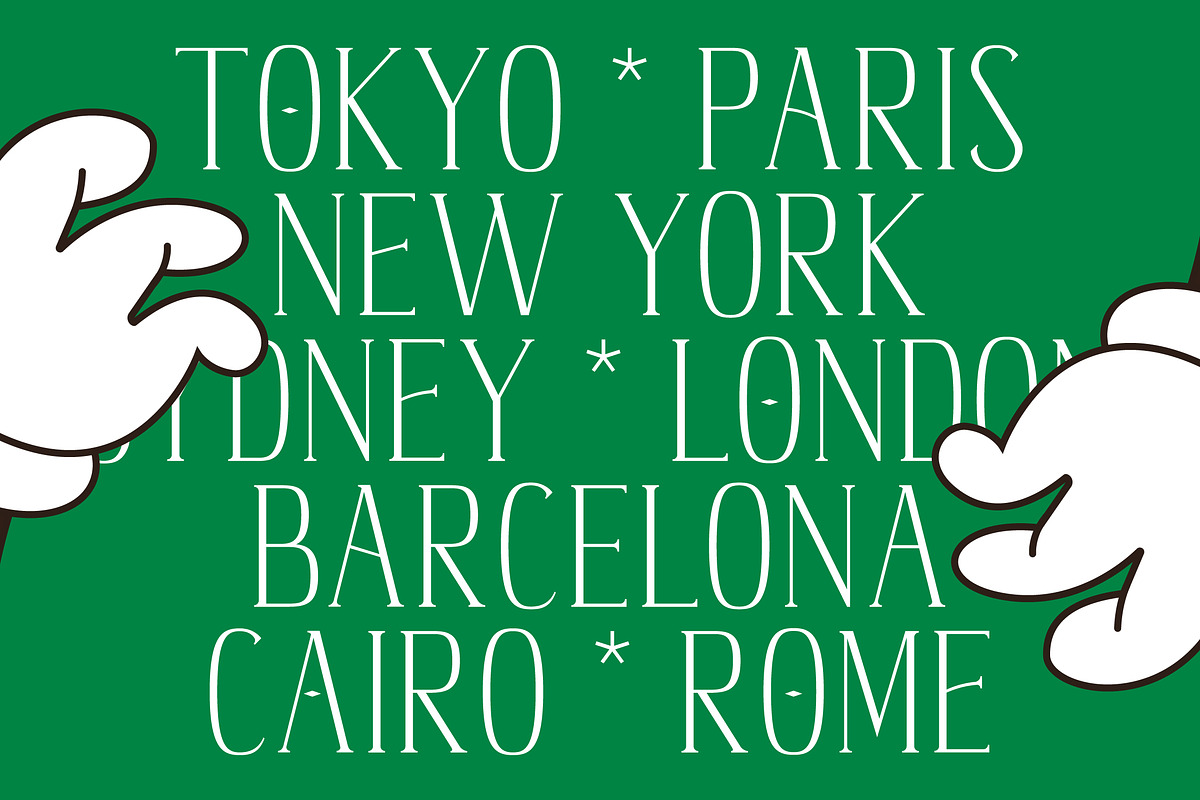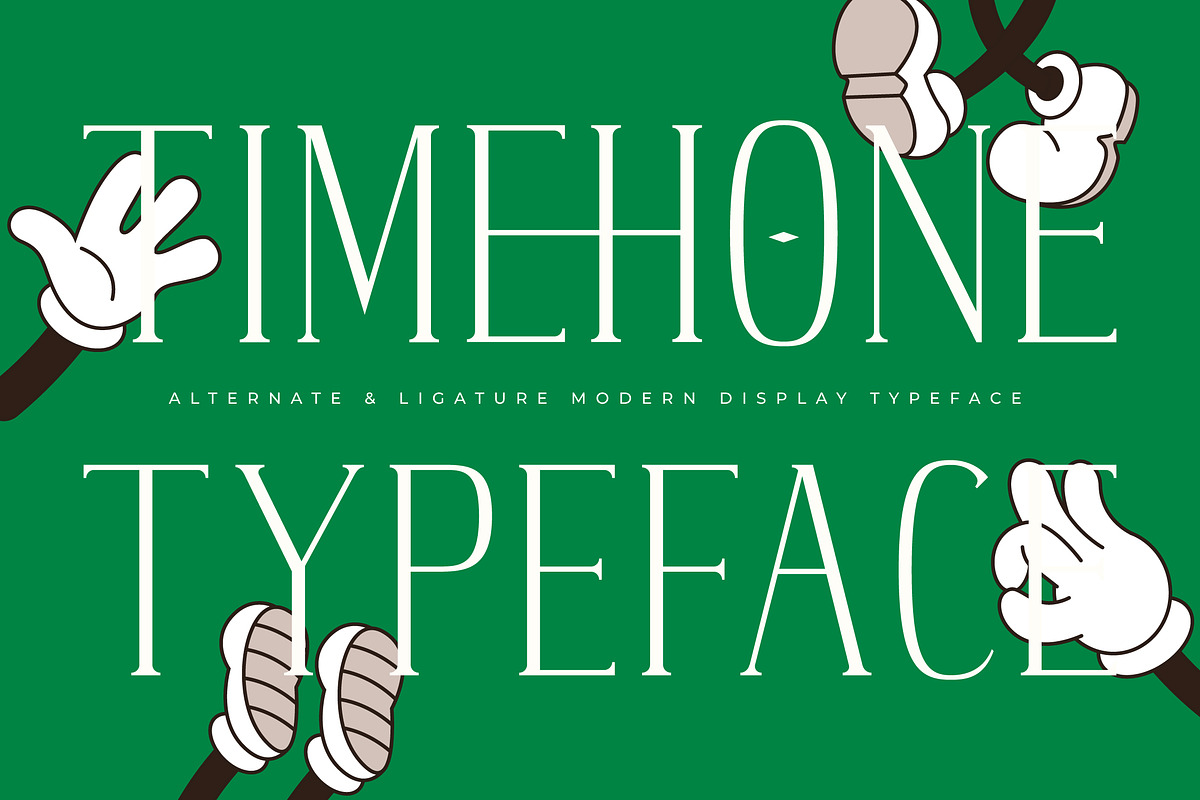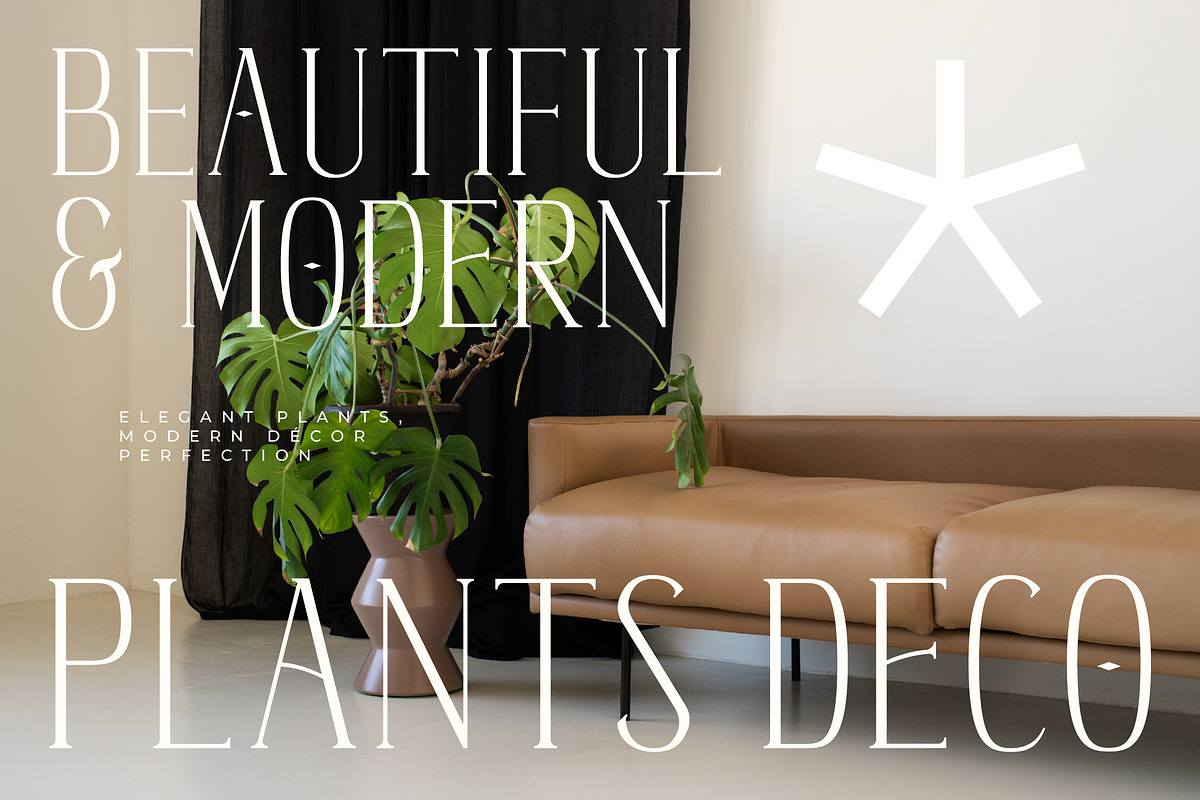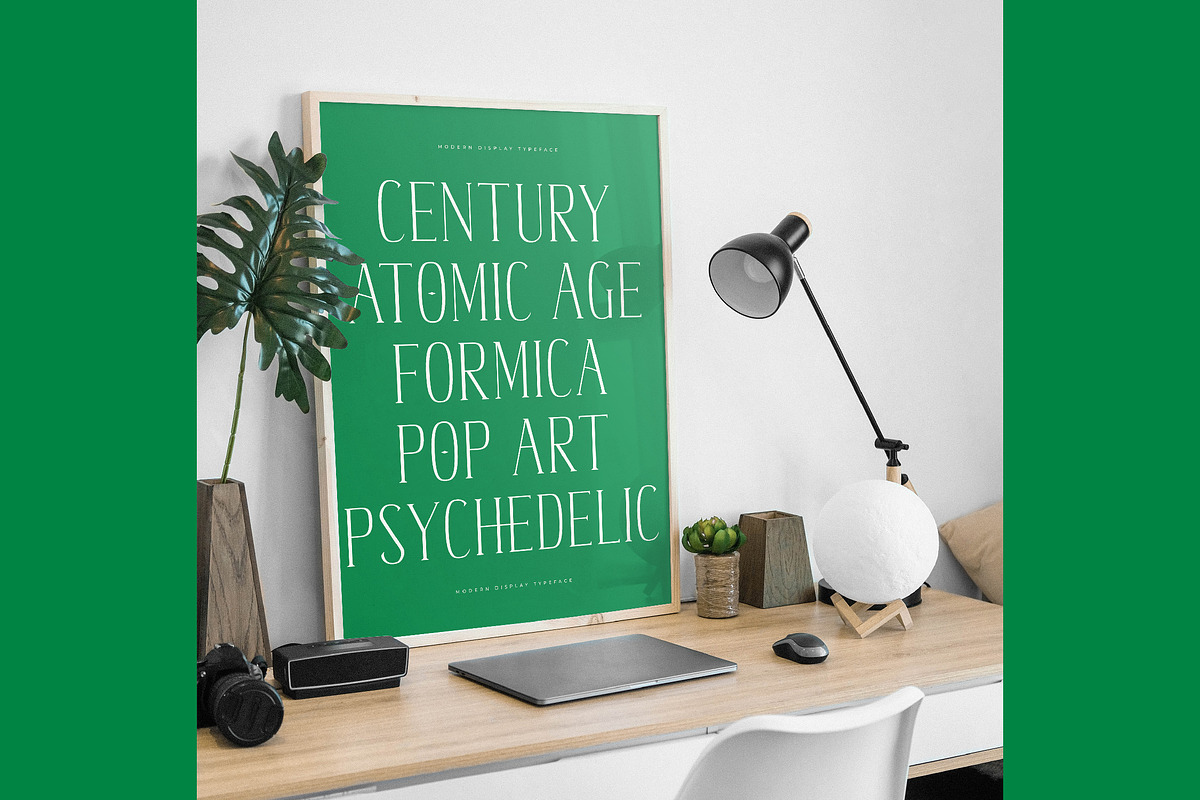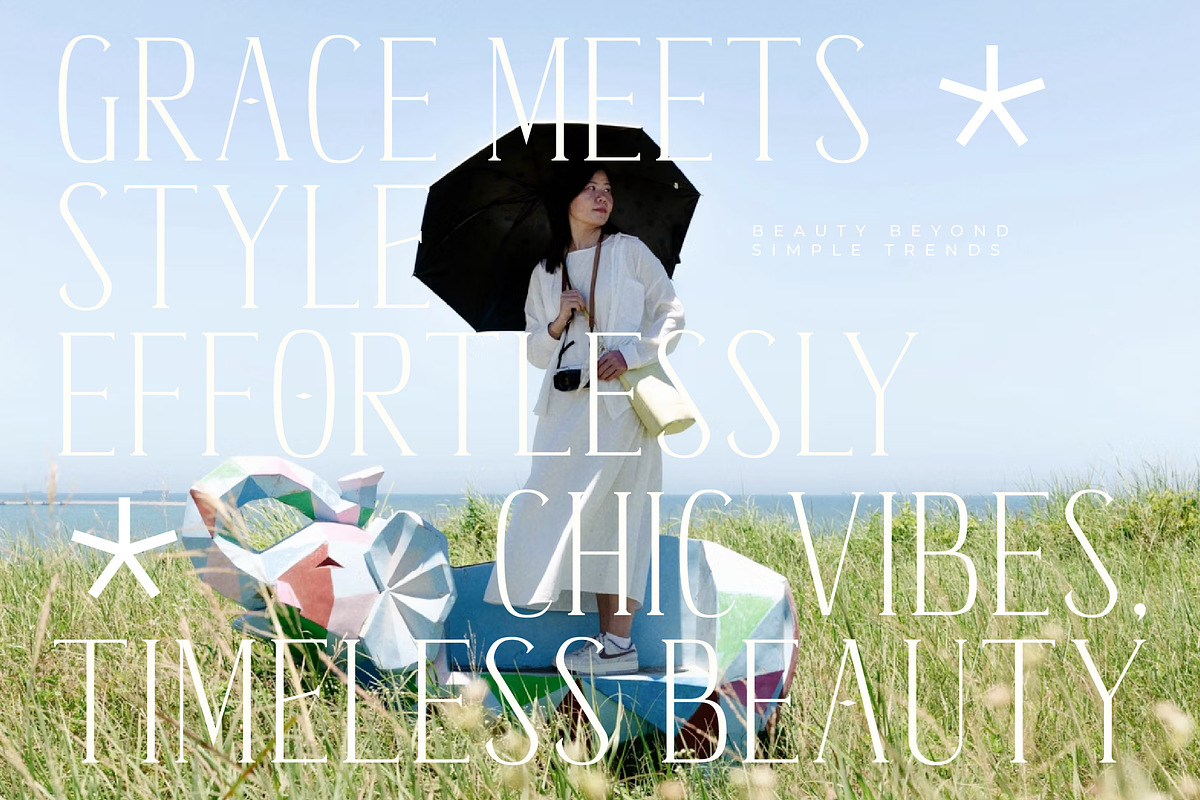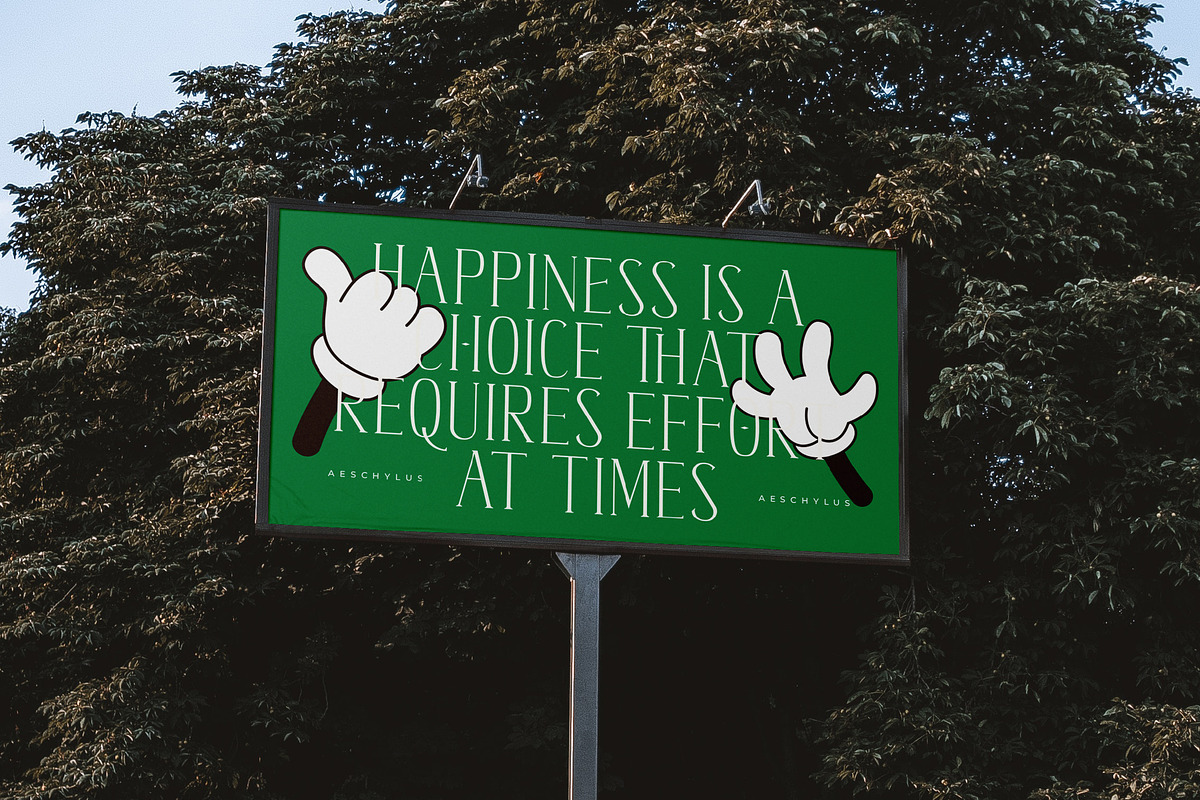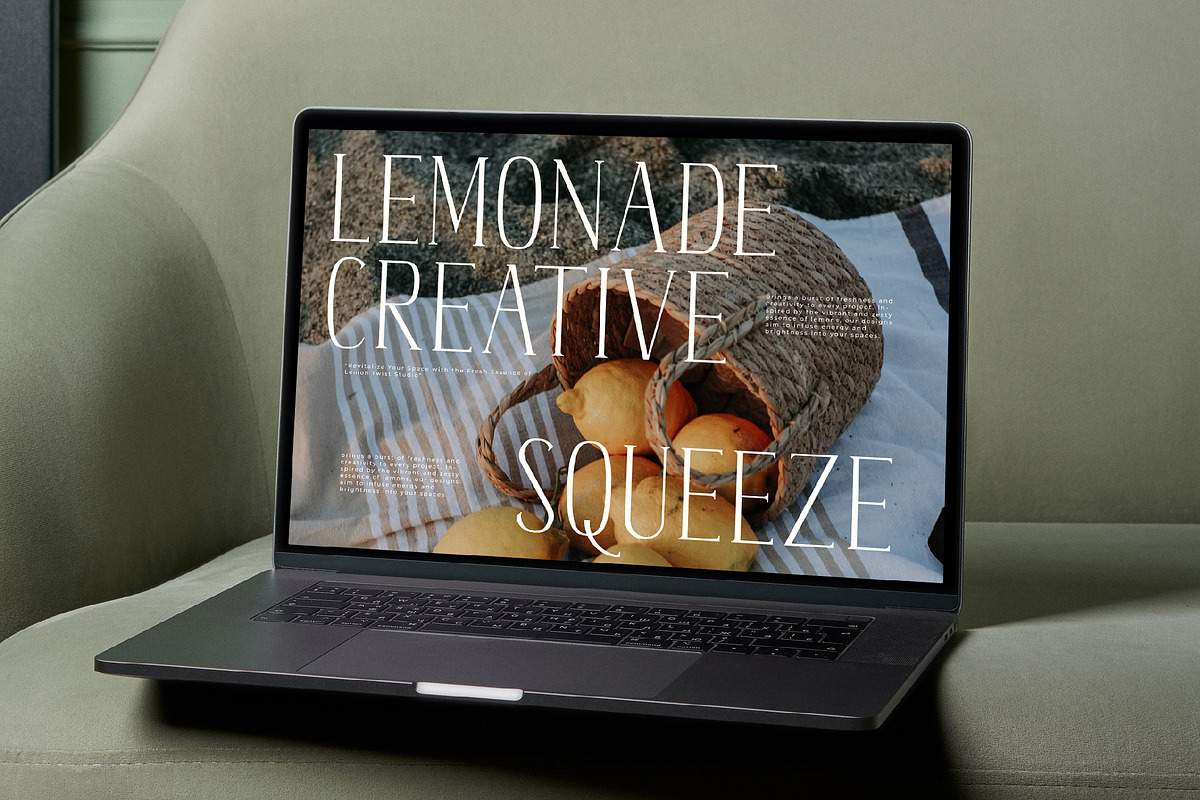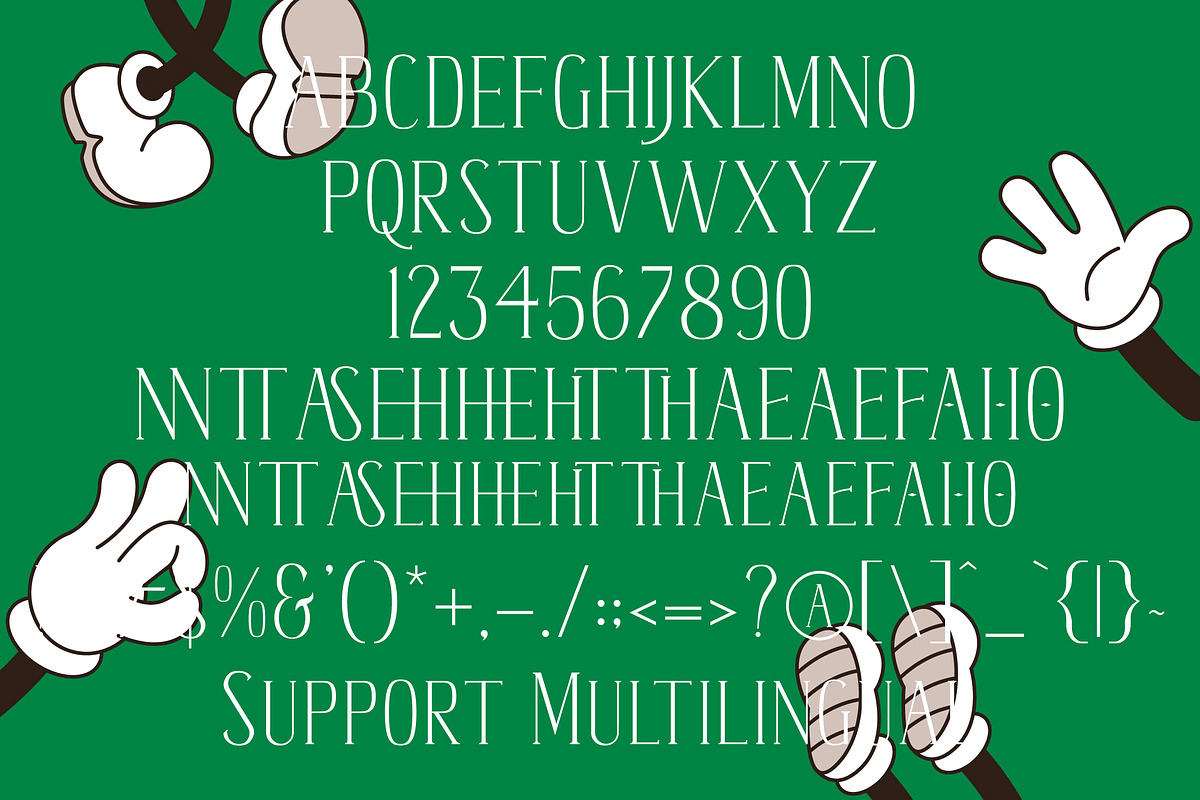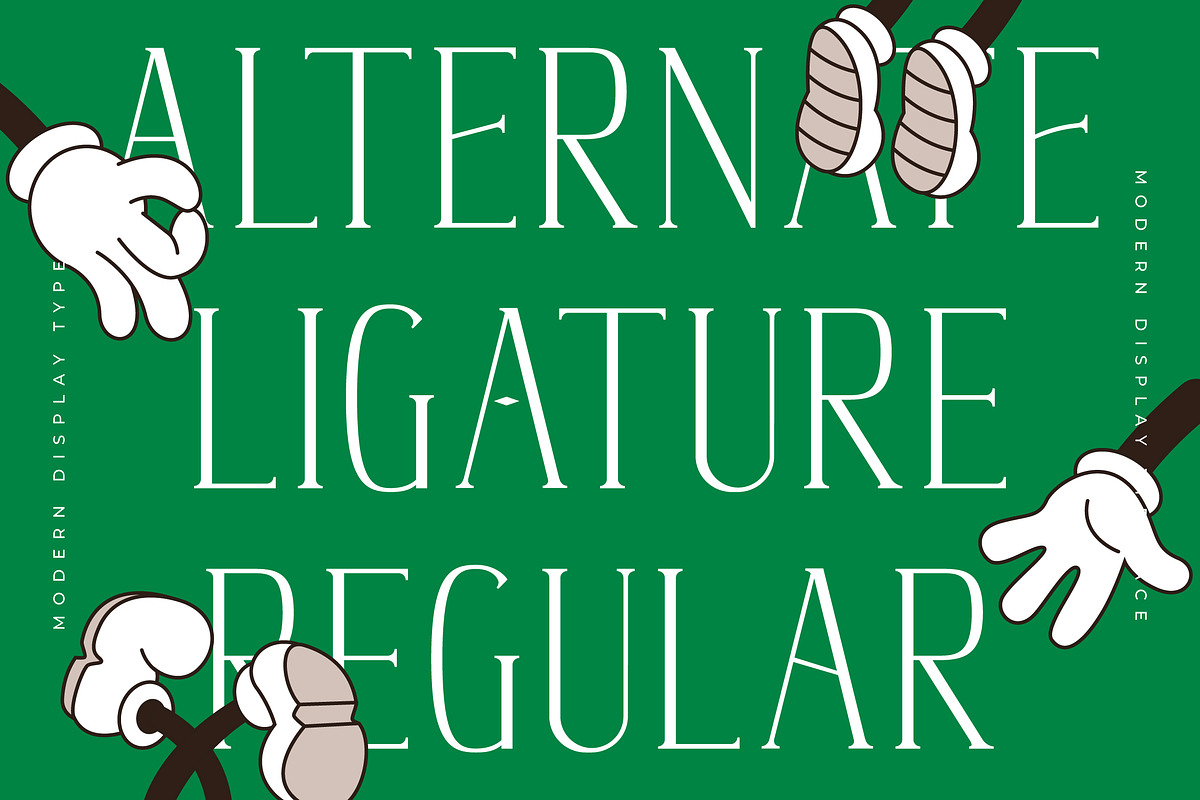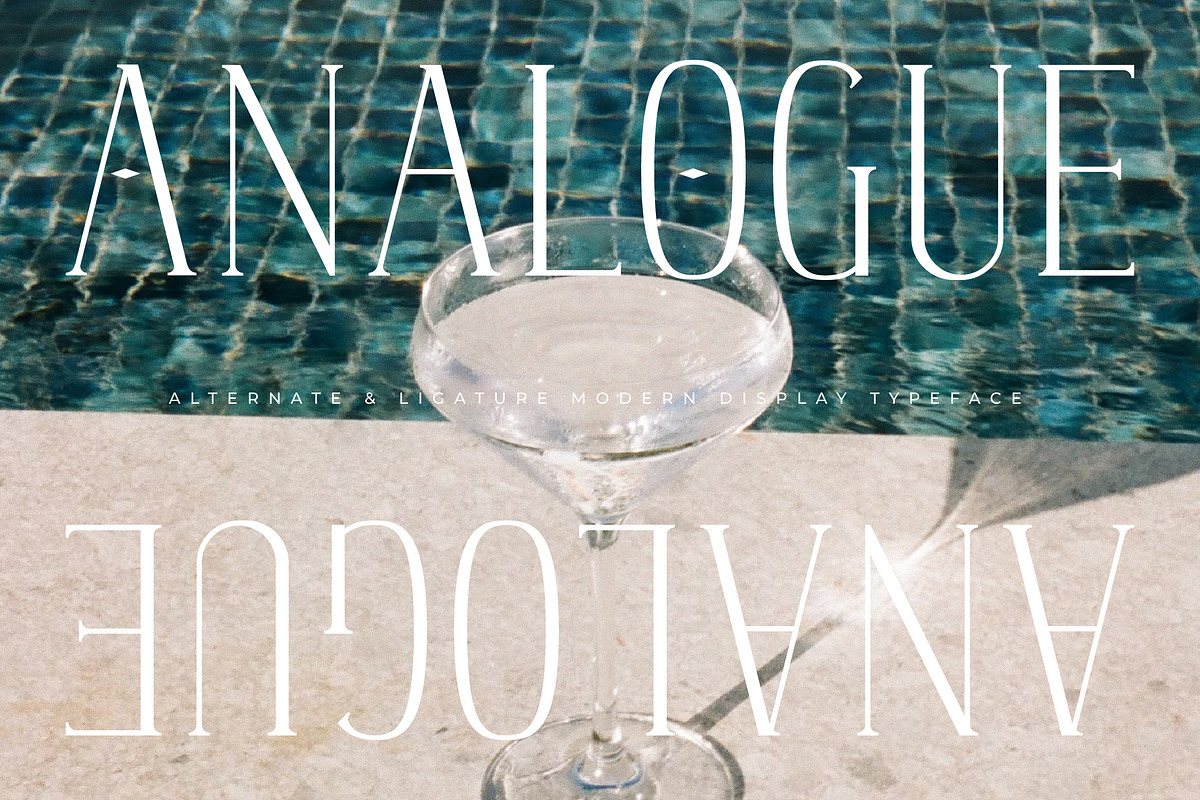
Timehone - Alternate & Ligature
Timehone Alternate & Ligature Modern Display Typeface
Timehone Alternate & Ligature Modern Display Typeface embodies a striking fusion of innovative design and timeless allure. Featuring meticulously crafted characters and sophisticated ligatures, Timehone Alternate offers a fresh yet classic aesthetic that seamlessly blends modern flair with traditional elegance.
Ideal for high-impact branding, upscale editorial projects, and chic invitations, Timehone Alternate enhances your creations with its unique and luxurious style. Elevate your designs with Timehone, where cutting-edge innovation meets enduring grace.
- Ligatures, Alternates & Swashes